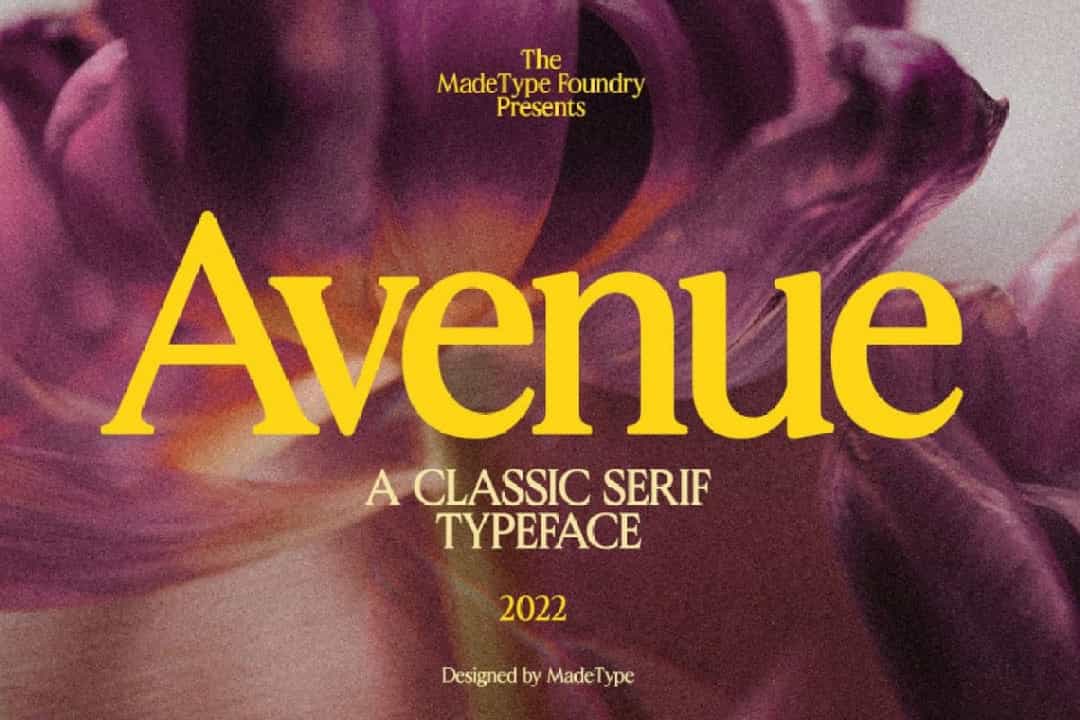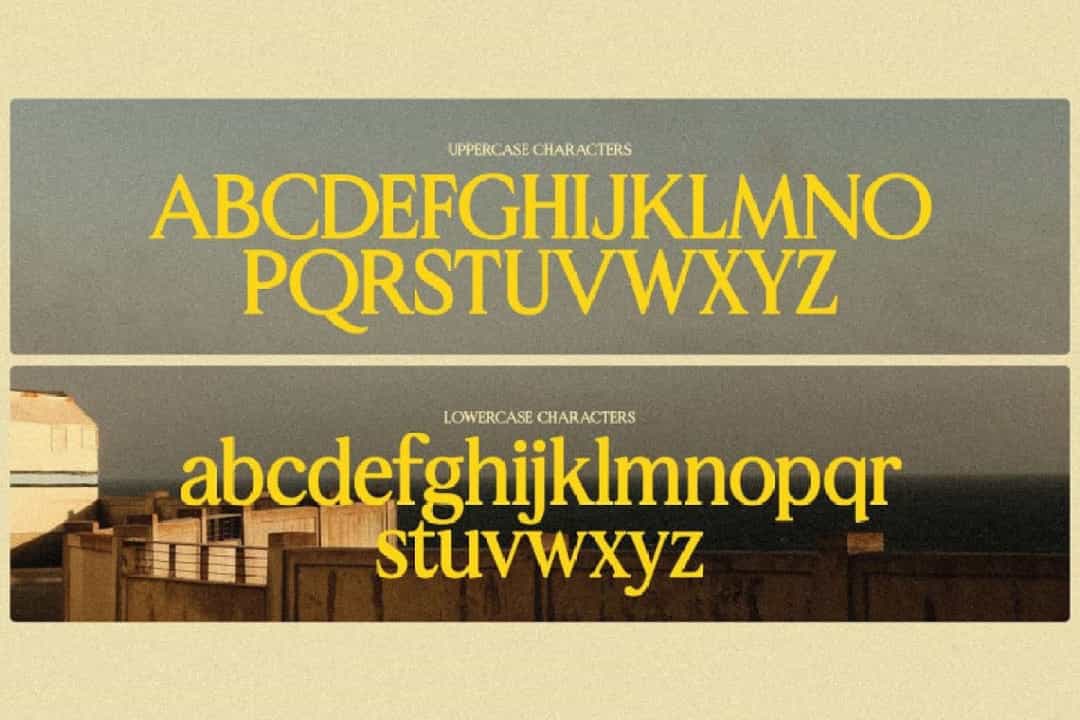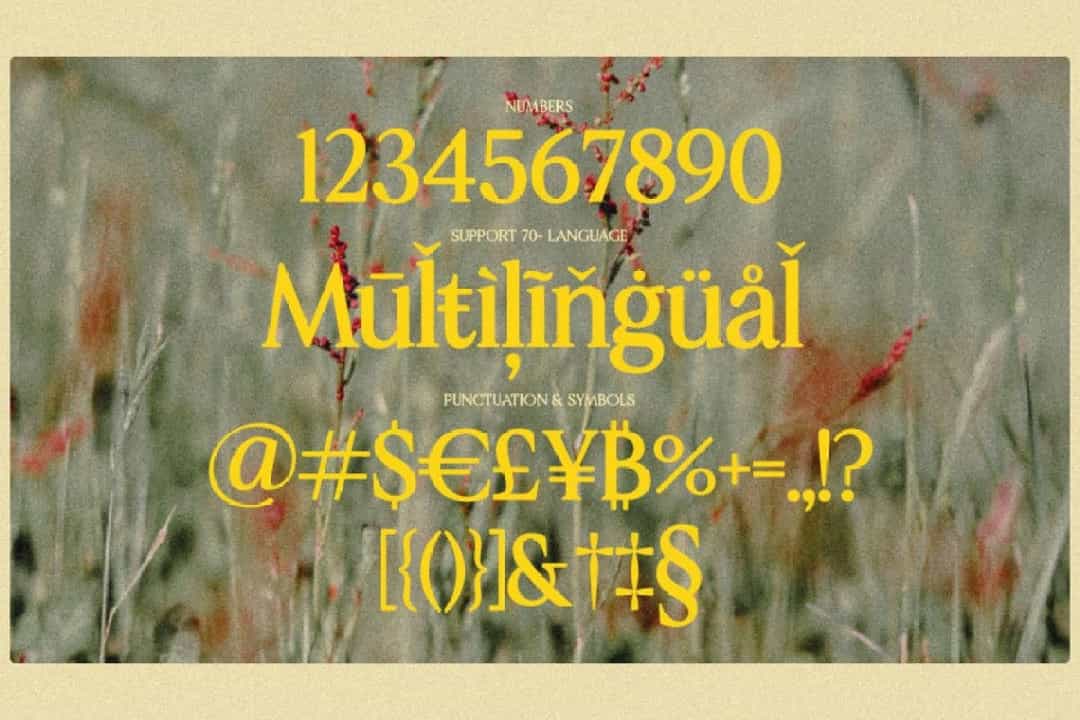
Avenue is an impressive and fashionable serif font with bold and cool character that you can use in all your designs to great effect. Use it for branding, logo design, clothing branding packaging product packaging magazines’ headers or as an elegant text overlay on any image background.